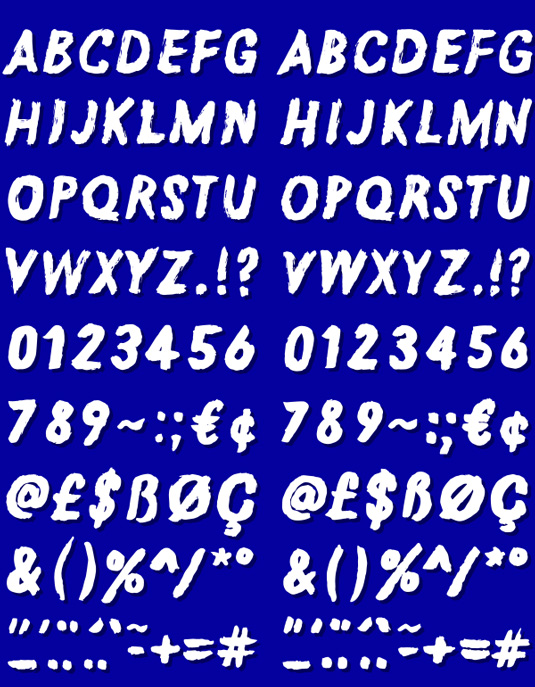
Font of the day: Wasteland
Every day we showcase the best fonts on the web. Today it's Wasteland by Anton Bohlin, which is free in exchange for a tweet.
Wasteland by Anton Bohlin
Freelance designer and animator Anton Bohlin created today's font of choice, Wasteland. He comments on his hand drawn, brush typeface: "Wasteland was inspired by a post apocalyptic future where civilization is wiped out, water and gasoline are the only accepted currencies on the planet and you only have a handful of shotgun shells left."